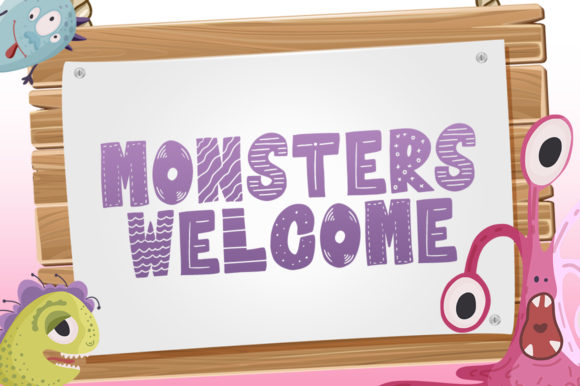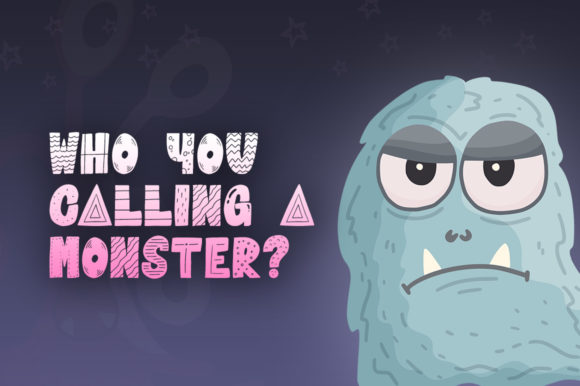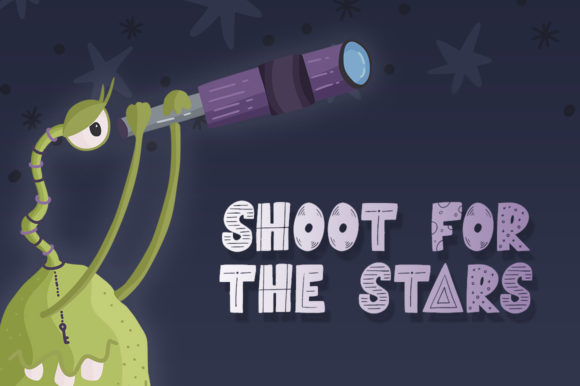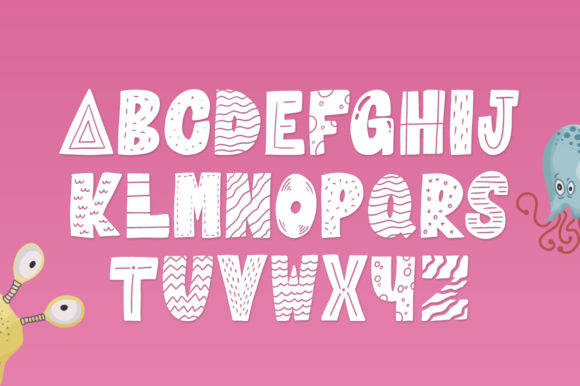
Frightful Font: The Cute and Funky Typeface You Need in Your Design Arsenal
When you hear the word “frightful,” you might think of something scary or spooky. But, think again! The Frightful Font is not here to give you the chills, but rather to bring a smile to your face with its adorable and playful design. This new typeface is quickly becoming a favorite among designers and crafters, and for good reason. In this article, we’ll dive into what makes the Frightful Font so special and why you need it in your design toolkit.
The Fun and Playful Characters of Frightful Font
The first thing you’ll notice about the Frightful Font is its unique and quirky character design. Each letter is crafted with a sense of playfulness and whimsy, making it perfect for projects that require a bit of personality. From the swooping curves of the “S” to the bubbly dots of the “i,” every character is designed to bring a touch of fun and humor to your designs.
Take a closer look at the font and you’ll see that each character is carefully crafted to be both cute and legible. The font’s creator has done an amazing job of balancing playfulness with readability, making it perfect for use in a variety of projects, from titles and headings to body text.
1000 Ideas Waiting to Happen
One of the best things about the Frightful Font is the endless possibilities it presents. As soon as you take a look at the characters, your brain starts racing with ideas for designs. Whether you’re a seasoned designer or a crafting enthusiast, this font is sure to inspire you to create something amazing.
Imagine using the Frightful Font to create:
- Fun and playful party invitations
- Cute and quirky social media graphics
- Adorable handmade cards and gift tags
- Eye-catching titles and headings for your blog or website
- Unique and personalized gifts, such as customized mugs or tote bags
The possibilities are truly endless, and with the Frightful Font, you’ll be able to add a touch of personality and whimsy to any project.
Why You Need the Frightful Font in Your Design Toolkit
So, why should you add the Frightful Font to your design arsenal? Here are just a few reasons:
- Unique and playful design: The Frightful Font is unlike any other typeface out there. Its quirky character design and playful vibe make it perfect for projects that require a bit of personality.
- Highly versatile: Whether you’re working on a digital project or a handmade craft, the Frightful Font is perfect for a wide range of applications.
In conclusion, the Frightful Font is a must-have for designers and crafters looking to add a touch of personality and whimsy to their projects. With its unique and playful character design, high versatility, and ease of use, this font is sure to become a favorite in your design toolkit. So, what are you waiting for? Grab the Frightful Font now and start creating!
| Font Name | Frightful Font |
| Author | Salt and Pepper Fonts |